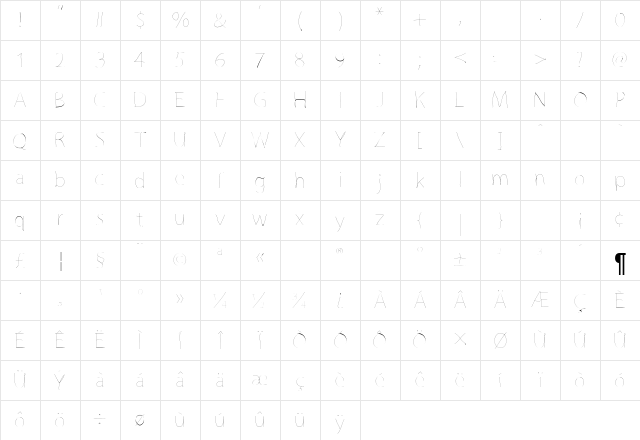
Complete GrutchLine Regular glyph index. Displaying only characters natively supported by GrutchLine Regular font.
GrutchLine is a composed and adaptable typeface that performs quietly and consistently across a wide range of design contexts.